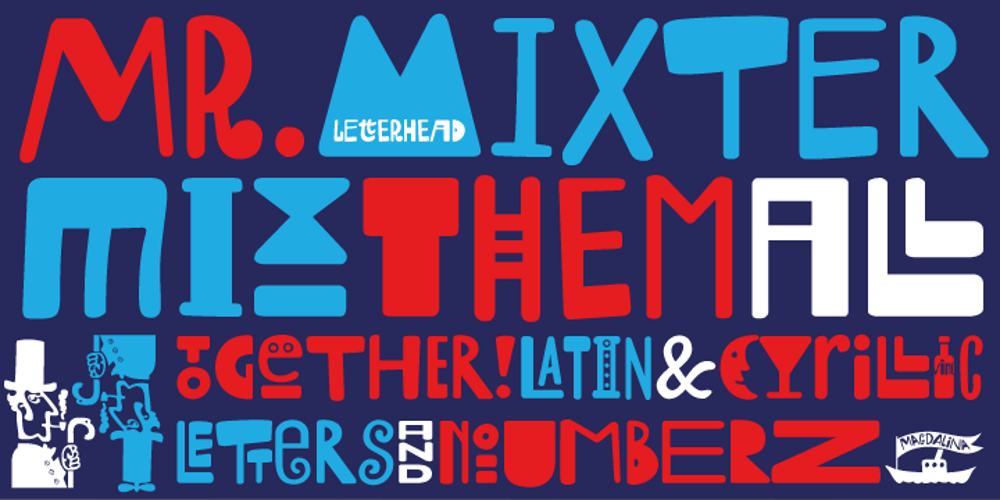
Mr Mixter Font Family was designed by Yuri Gordon and published by Letterhead Studio-YG. Mr Mixter contains 1 styles and family package options. Mr. Mixter designed to blend everything with everything. Mix Latin letters with Cyrillic letters, add numbers as letters — just have fun with the mixing process. As a result, you might get a funny and cute Christmas card. Attention! Work only by hand, using the Glyphs menu in Illustrator or InDesign. Look carefully and you will find a lot of fun.